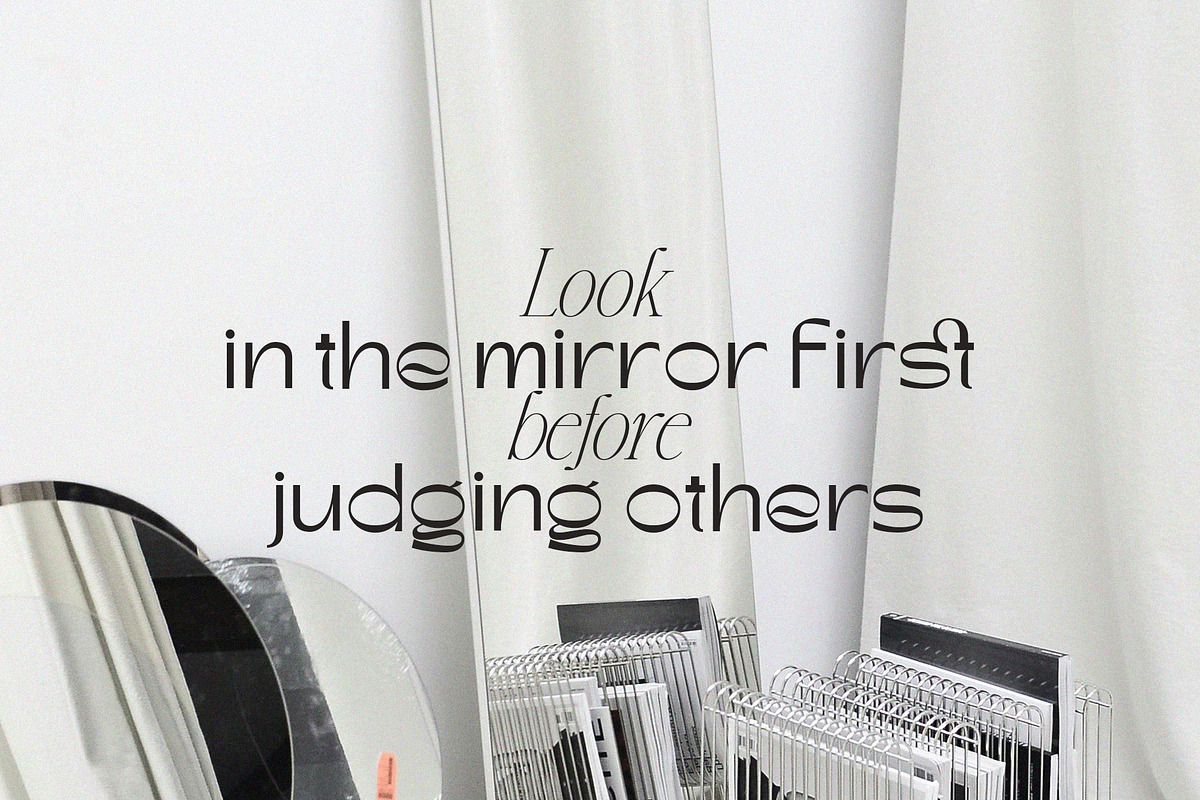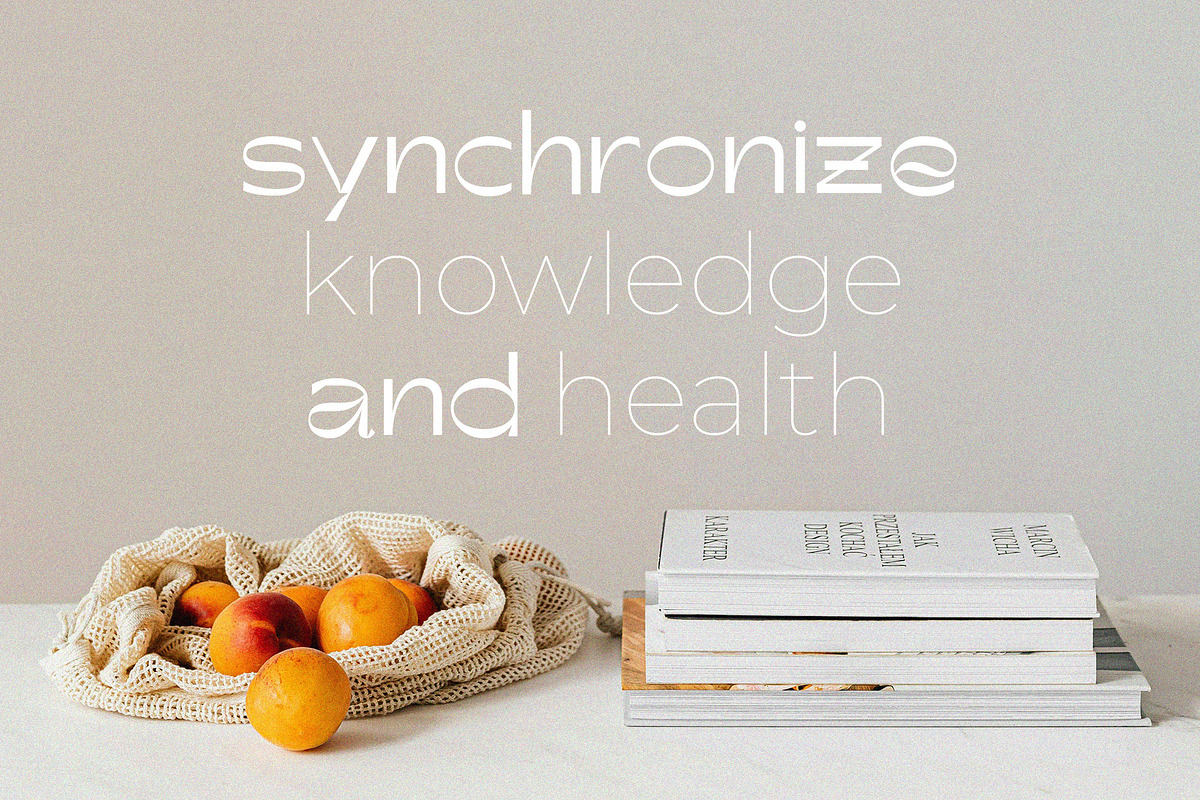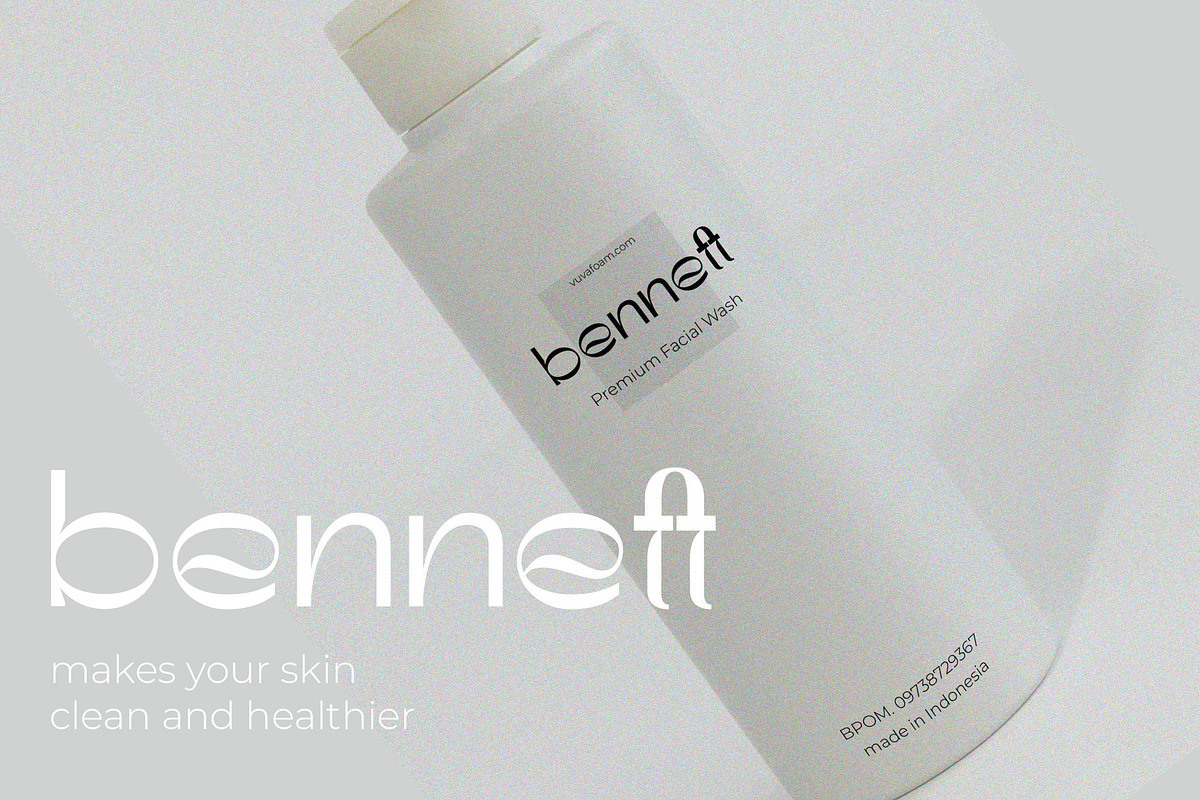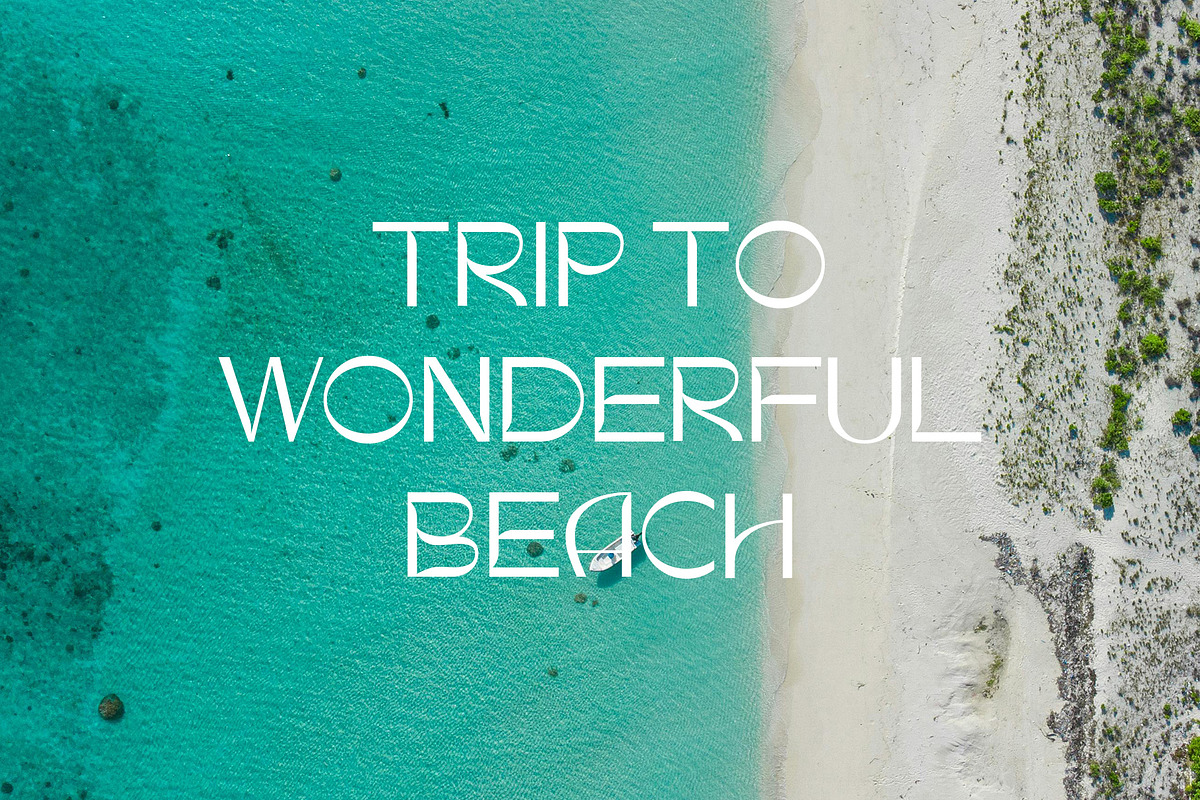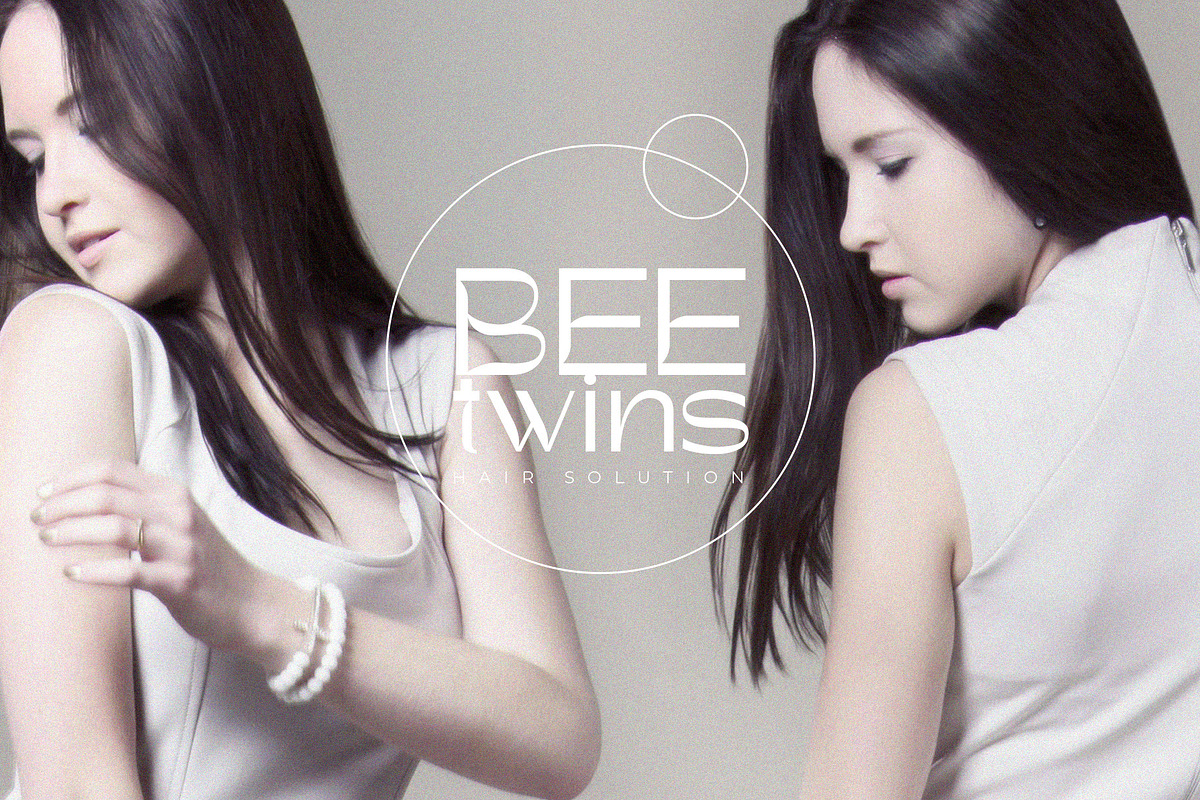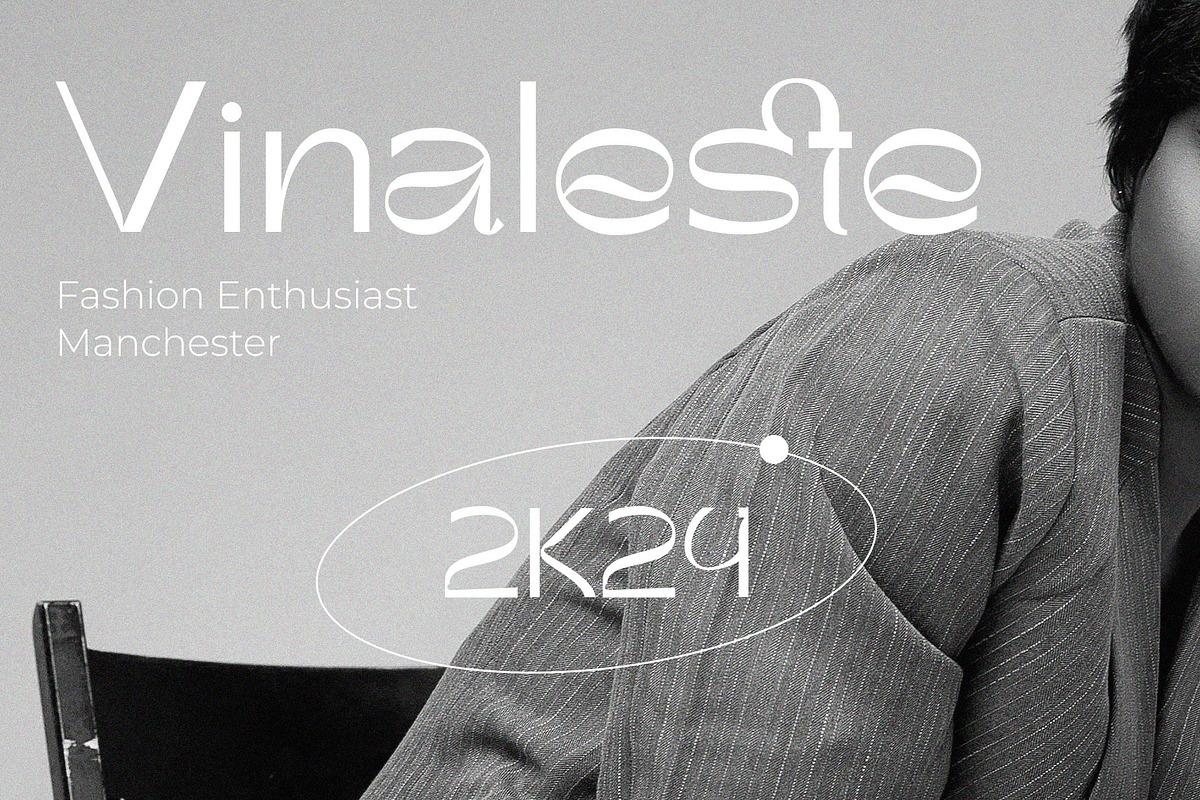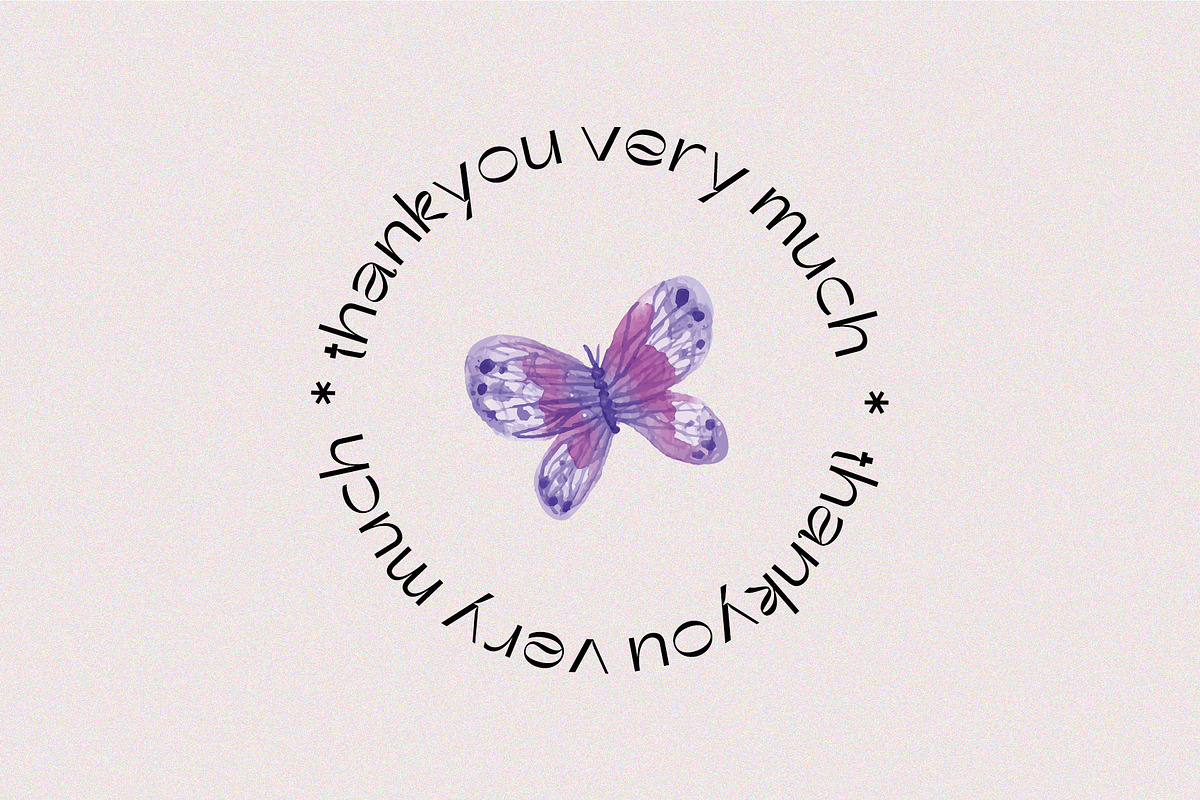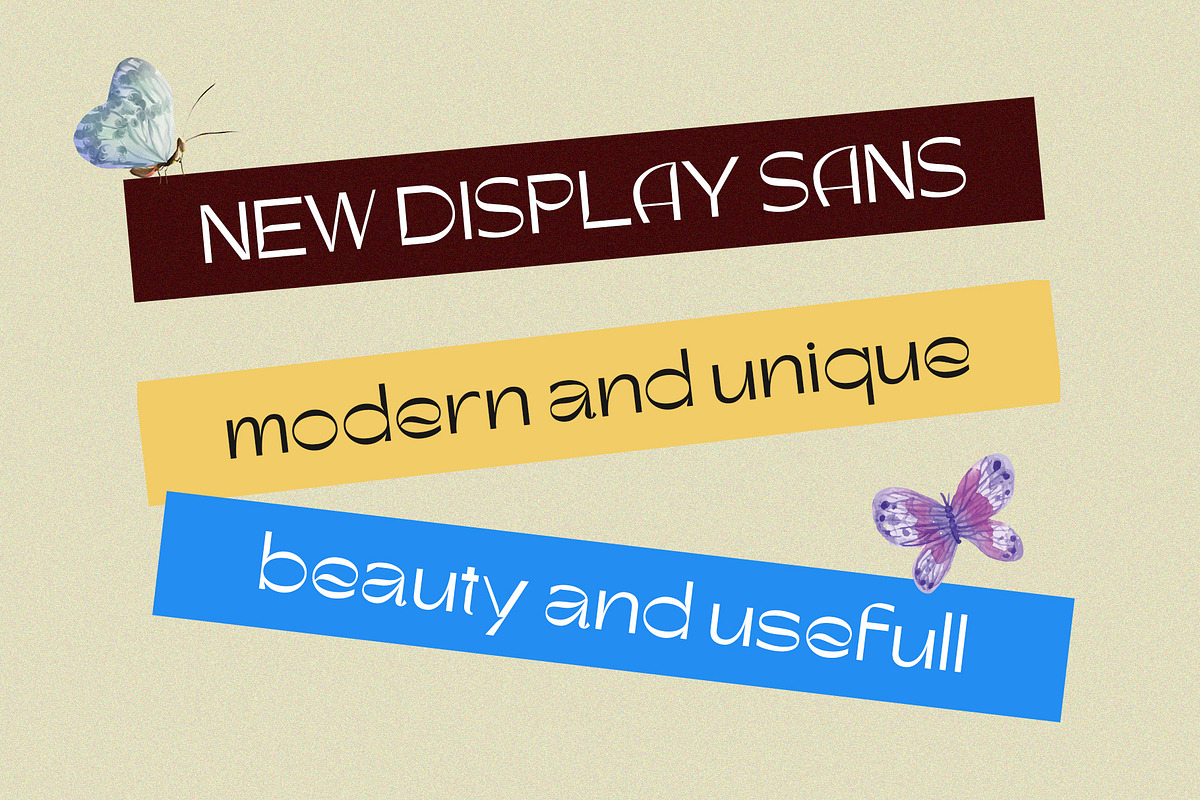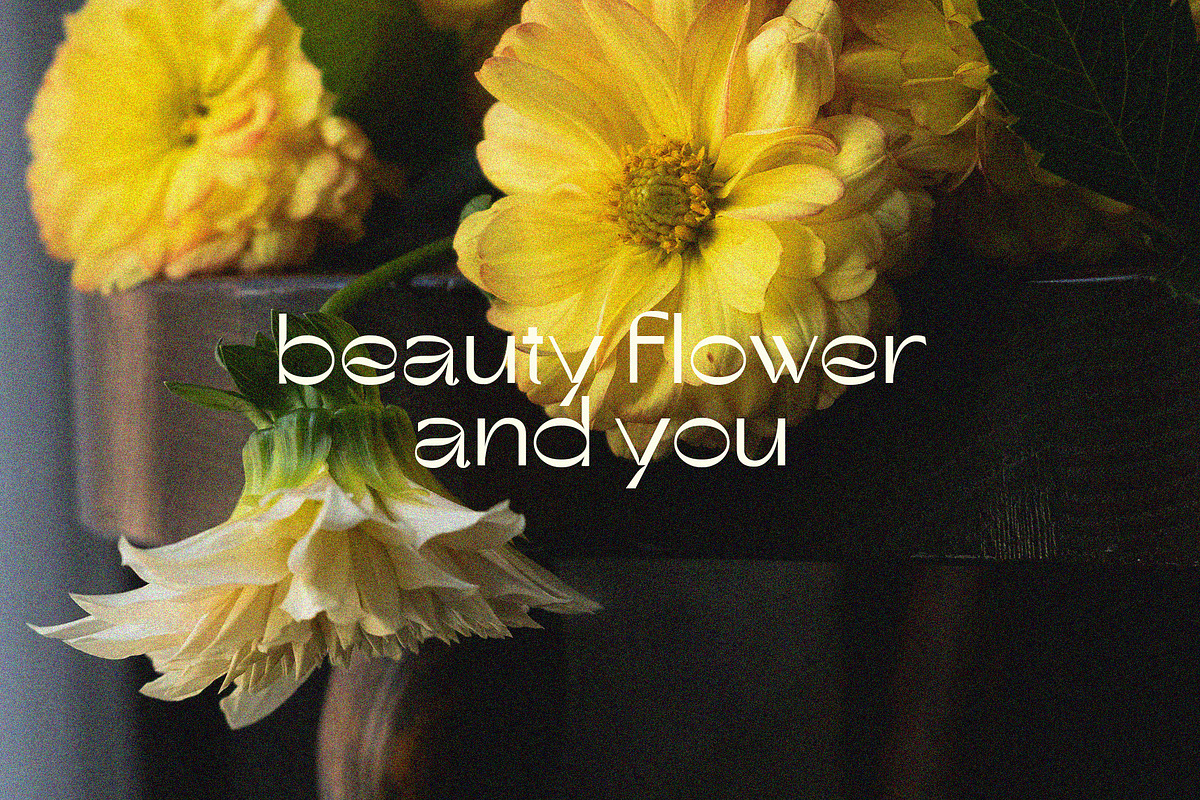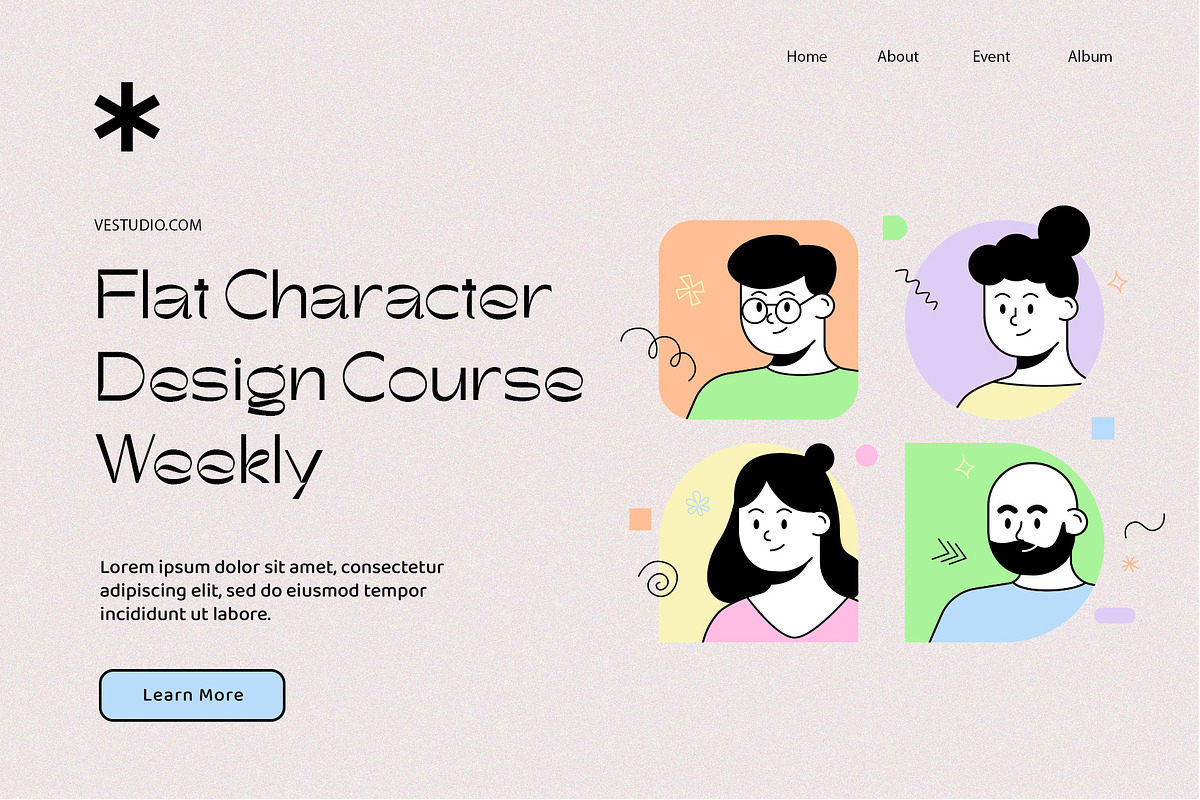
Minangsteng Sans Display
hello me is the newest font from violetnatural.std. My name is Minangsteng, I am in the sans serif category with a clean and beautiful modern style and a unique shape. and I am ready to make your project even more interesting and modern. You will get otf,ttf,woff and woff2 files from me